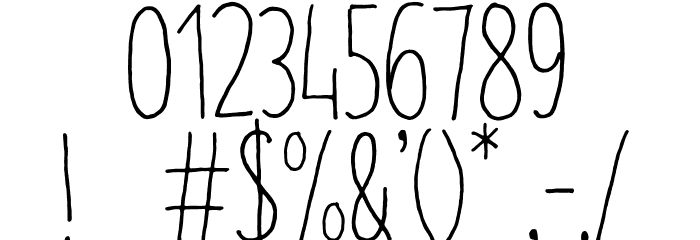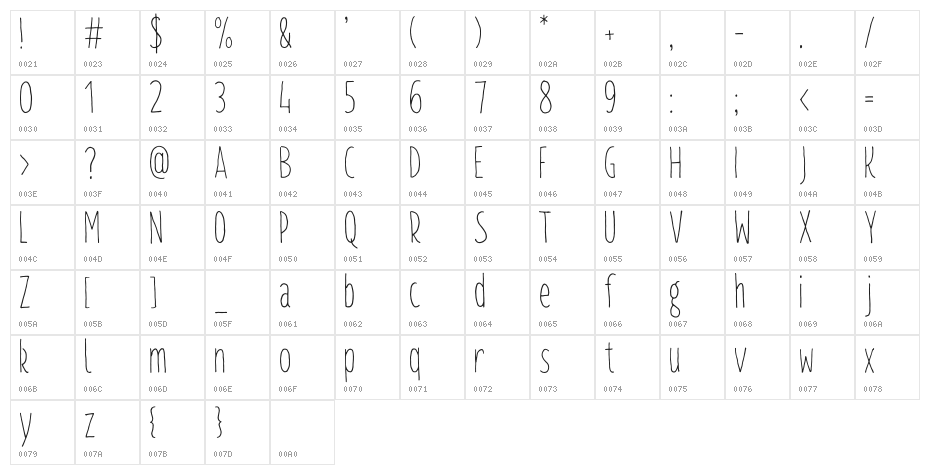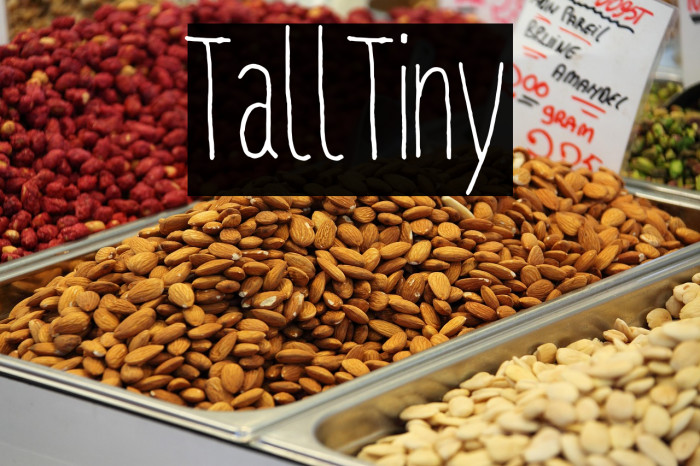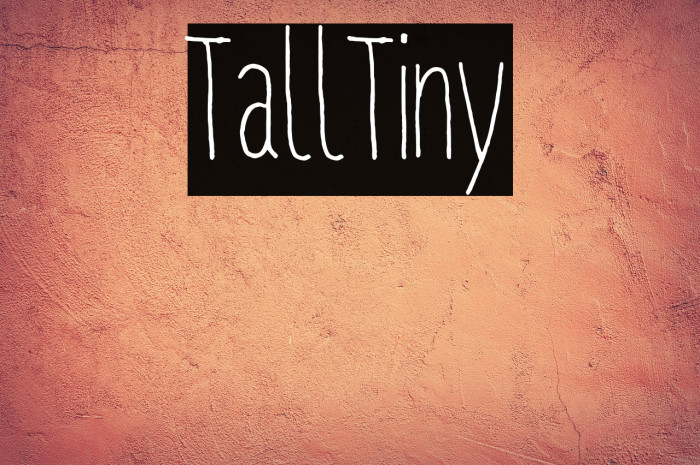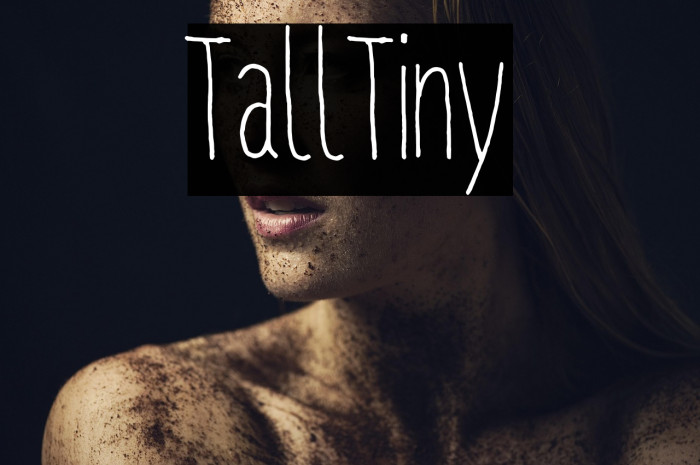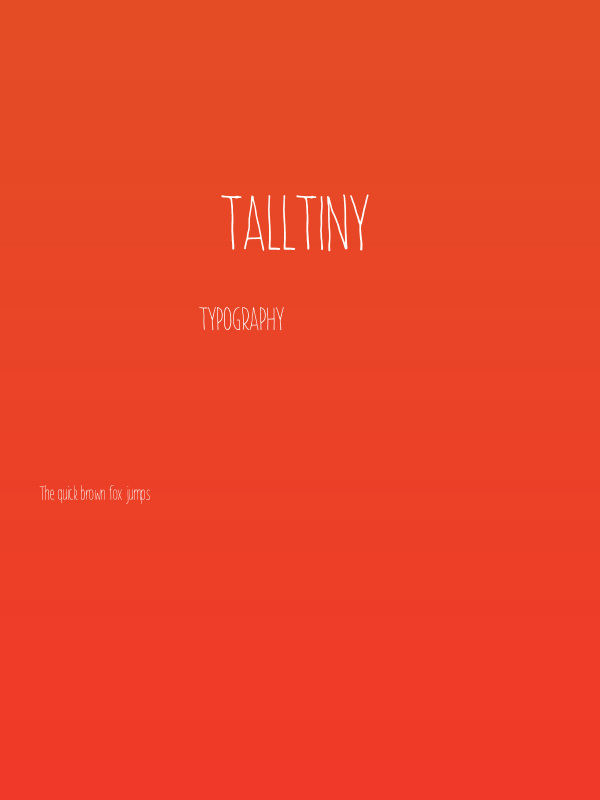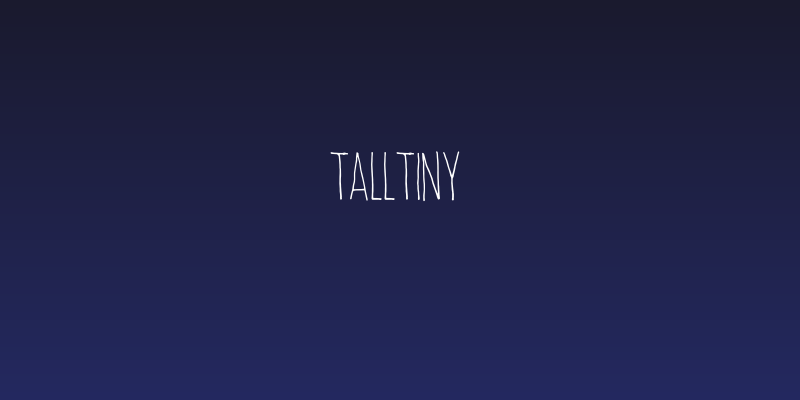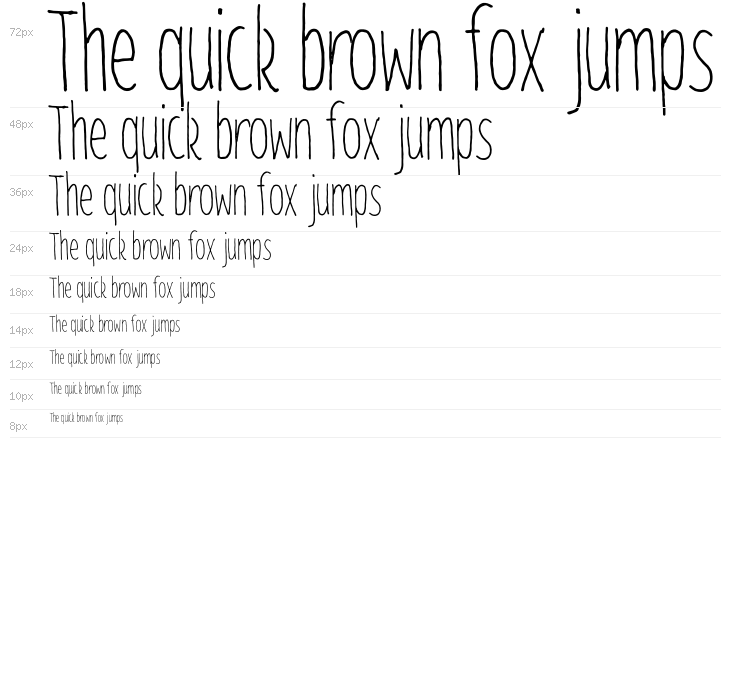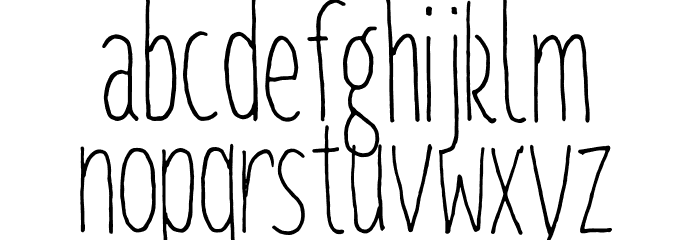
TallTiny Font
TallTiny Description
This font features a tall and narrow design with a hand-drawn aesthetic, giving it a whimsical and playful feel. The characters are elongated, with a consistent stroke width that maintains a uniform appearance across both uppercase and lowercase letters. The numbers and special characters follow the same style, ensuring a cohesive look. The font's irregular lines and slight imperfections add to its charm, making it ideal for projects that require a personal touch. Its unique style is both eye-catching and approachable, suitable for a variety of creative applications.
| Proposed Projects | Ideal for children's book covers, playful branding, greeting cards, and creative posters. |